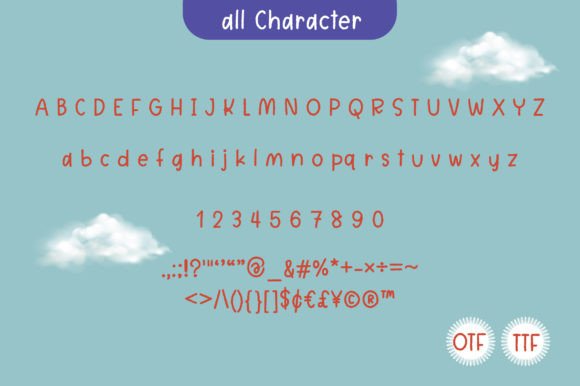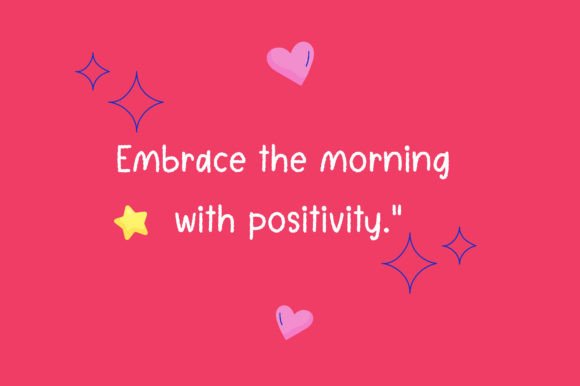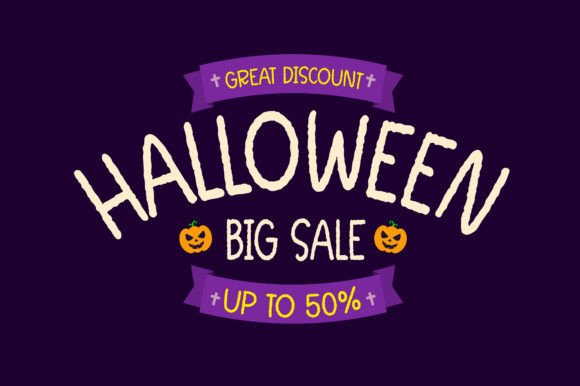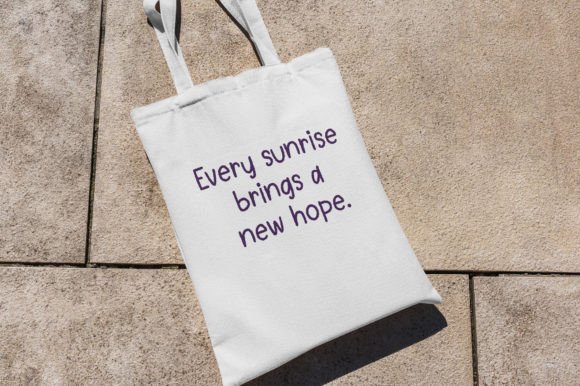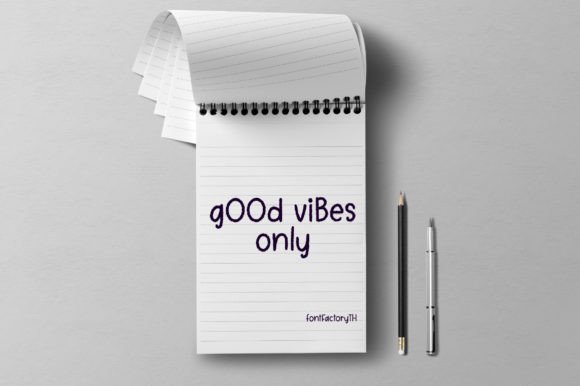
Introducing FluffyMist: The Charming Handwritten Font for Digital Planning and Note-Taking
In the world of digital design, fonts play a crucial role in conveying the tone and personality of a project. For designers and crafters looking for a unique and charming handwritten font, FluffyMist is an excellent choice. This beautifully crafted typeface effortlessly captures the essence of simplicity and neatness, making it perfect for digital planning and note-taking.
The Unique Charm of FluffyMist
FluffyMist is more than just a cute handwriting font; it represents the harmony between the chic sans-serif style and the intimate appeal of handwritten fonts. This exquisite clean typeface is designed to infuse a touch of personality into your digital study notes and collage notes. With its uniquely charming handwritten style, FluffyMist is sure to make your digital projects stand out.
Perfect for Digital Planning and Note-Taking
FluffyMist is specifically designed for digital planning and note-taking, making it an ideal choice for designers and crafters who want to add a personal touch to their digital projects. Whether you’re creating digital study notes, collage notes, or planners, FluffyMist is the perfect companion. Its neat and clean design ensures that your digital projects look organized and visually appealing.
As a neat handwriting font, FluffyMist seamlessly adapts to a multitude of uses, reinforcing its value as a versatile simple font. You can use it for a variety of projects, including:
- Digital planning and note-taking
- Creating digital study notes and collage notes
- Designing social media graphics and posts
- Crafting digital journals and planners
- Developing brand identities and marketing materials
The Benefits of Using FluffyMist
So, why choose FluffyMist for your digital projects? Here are some benefits of using this charming handwritten font:
- Unique and charming style: FluffyMist has a uniquely charming handwritten style that sets it apart from other fonts.
- Neat and clean design: FluffyMist has a neat and clean design that ensures your digital projects look organized and visually appealing.
- Versatile: FluffyMist is a versatile font that can be used for a variety of projects.
- Easy to read: FluffyMist is easy to read, making it perfect for digital planning and note-taking.
Tips for Using FluffyMist Effectively
Here are some tips for using FluffyMist effectively in your digital projects:
- Pair it with other fonts: Pair FluffyMist with other fonts to create a unique and visually appealing design.
- Use it consistently: Use FluffyMist consistently throughout your digital project to create a cohesive look.
- Experiment with colors: Experiment with different colors to find the perfect combination that works with FluffyMist.
In conclusion, FluffyMist is a uniquely charming handwritten font that is perfect for digital planning and note-taking. Its neat and clean design, versatility, and ease of use make it an excellent choice for designers and crafters. Whether you’re creating digital study notes, collage notes, or planners, FluffyMist is sure to infuse a touch of personality into your digital projects.